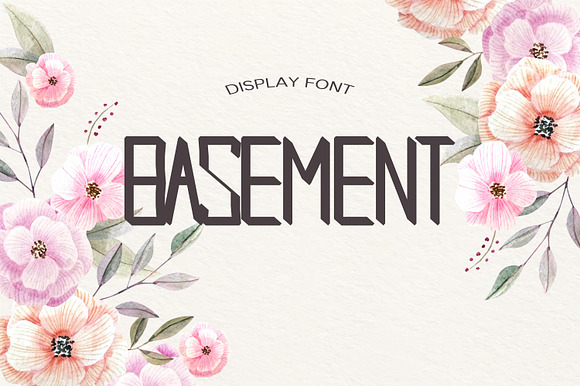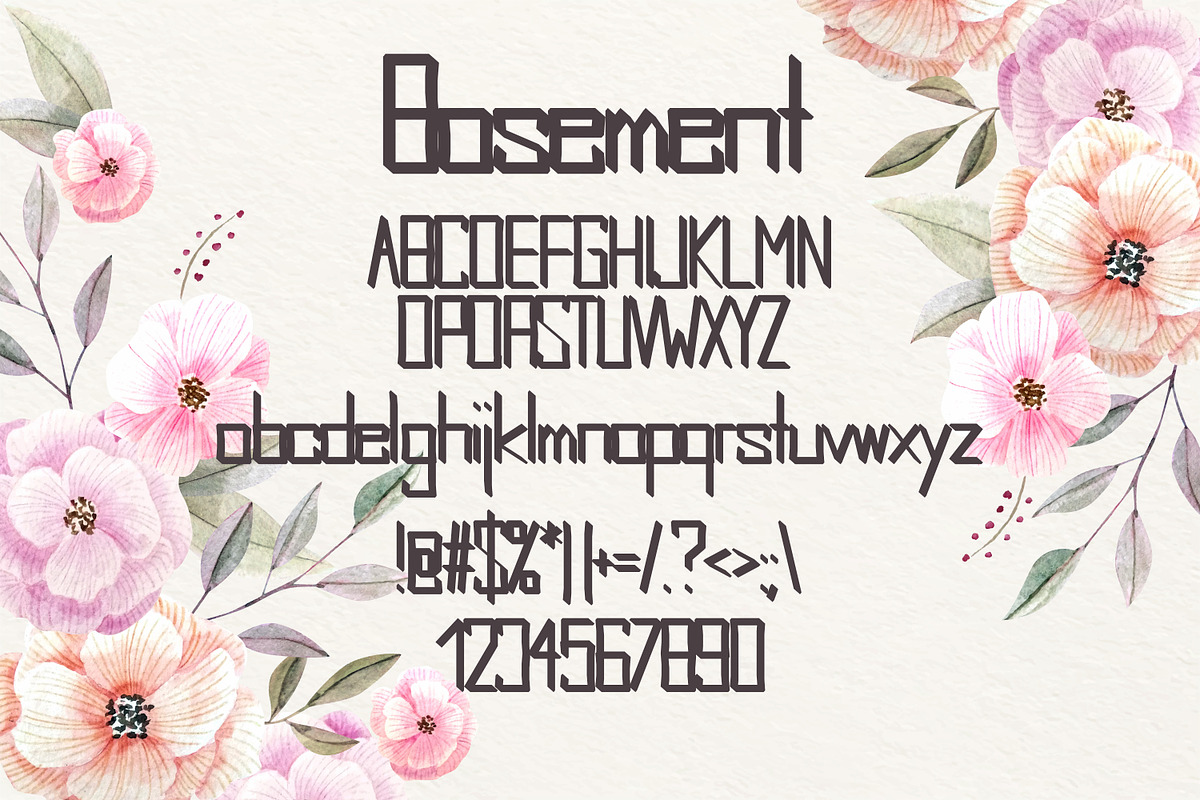
Basement Summer Font
Unique handmade calligraphic Summer Font is a modern display font with alternative flourish lowercase and uppercase characters. It helps you realize your dreams and creations.
- Unique handmade calligraphic Summer Font is a modern display font with alternative flourish lowercase and uppercase characters.
Why Basement Summer Font is worth a look
Basement Summer Font by DmDesignsStoreArt fits naturally into Branding, posters, packaging, typography.